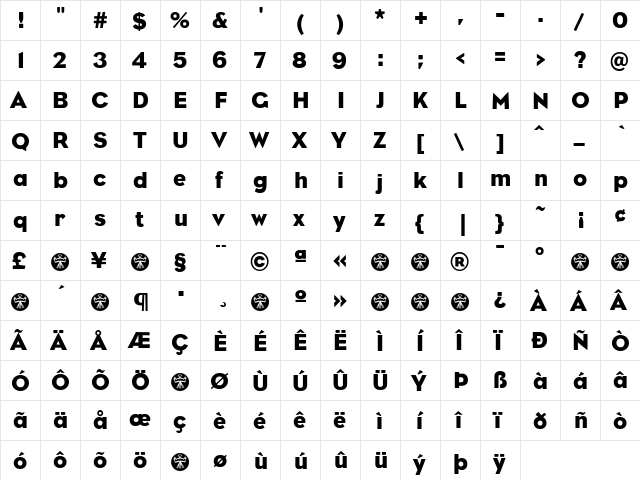
BureauEagleBook Regular Font Preview
BureauEagleBook Regular
BureauEagleBook Regular Font Details
Design Context for BureauEagleBook Typeface
BureauEagleBook is a composed and adaptable typeface that performs quietly and consistently across a wide range of design contexts.